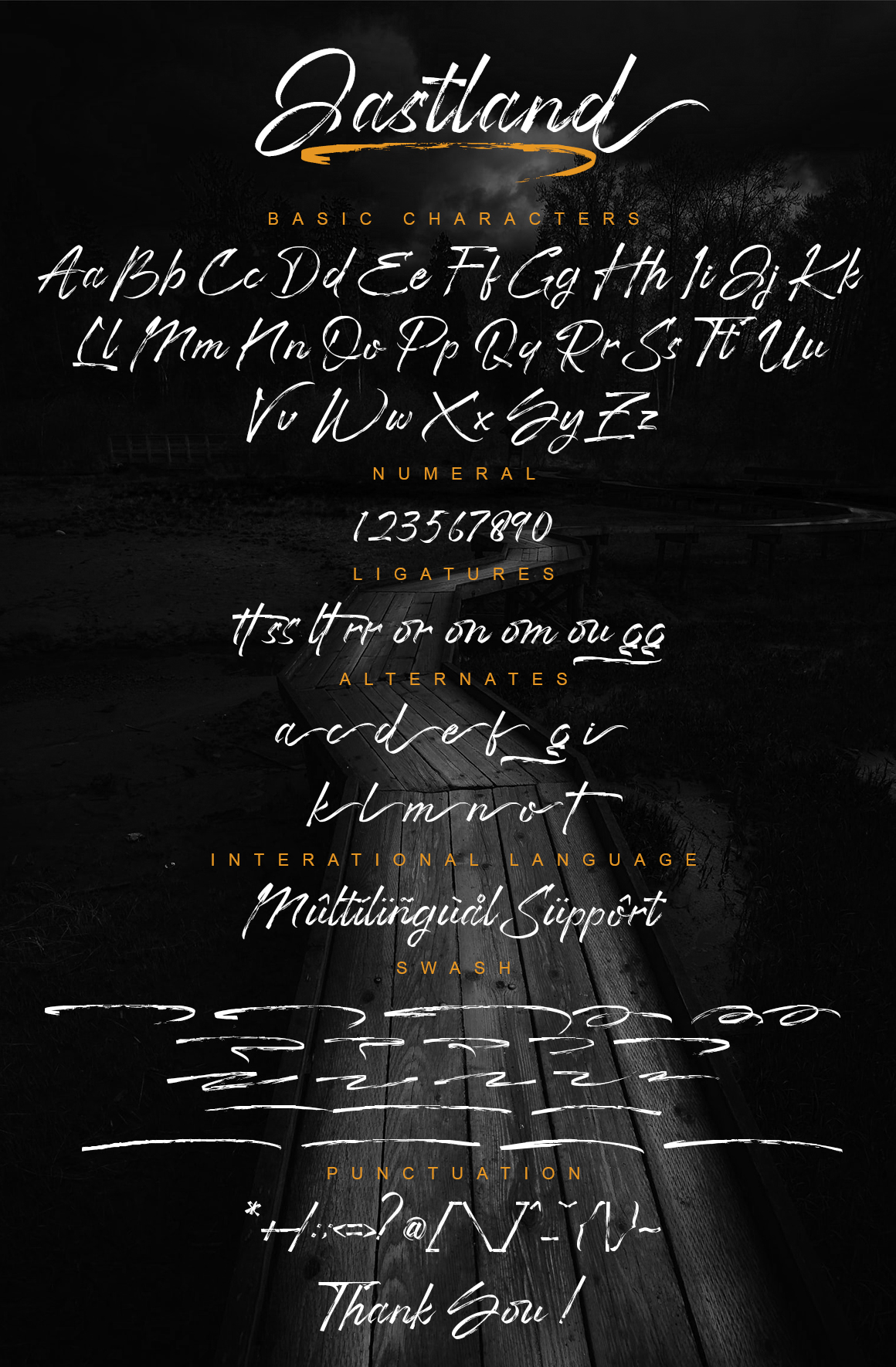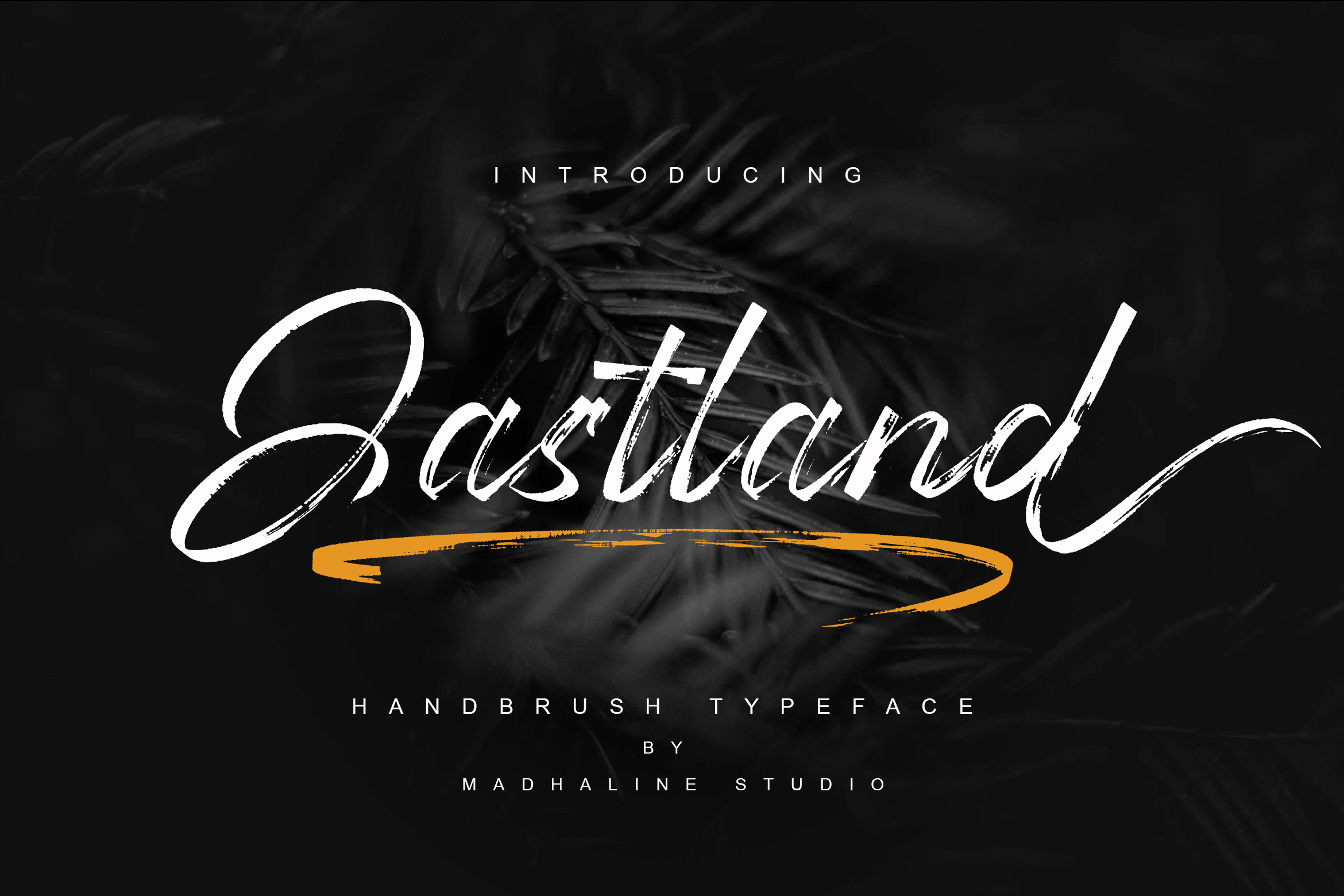
Jastland Font
Jastland Script Font
This is a lovely brushed script font. It is PUA encoded which means you can access all of the glyphs and swashes with ease! Add it confidently to your projects, and you will love the results.